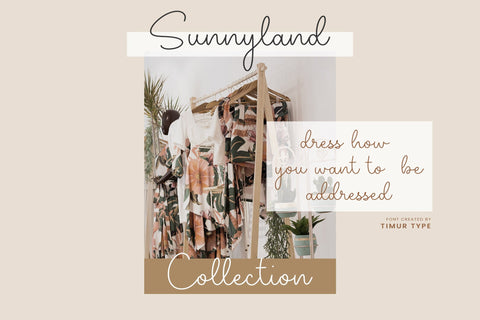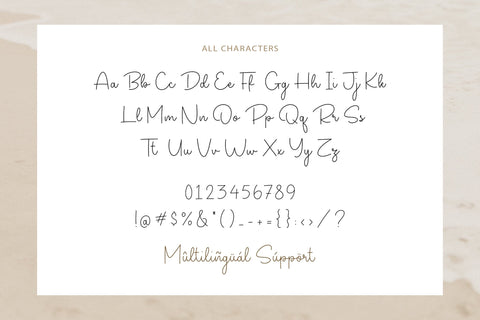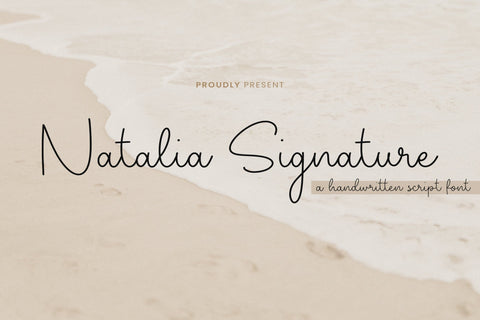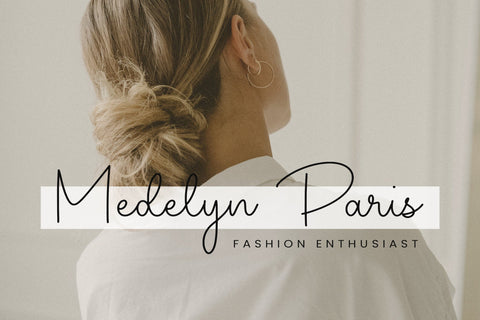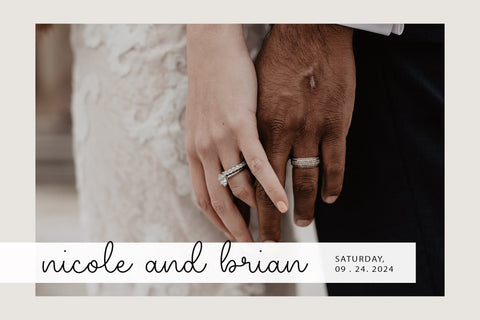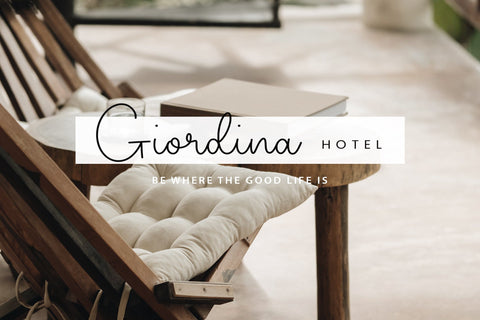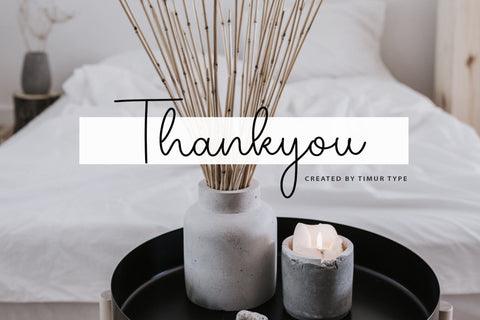
Natalia Signature - Handwritten Script font
Natalia Signature is a Handwritten Script font , which was created with great care and specially created for you .
Natalia Signature is best for:
- logos, branding, & Signatures.
- Flyers, Album cover, Magazine, & Advertisements.
- Website design , design blogs, & fashion.
- Quote graphics for social media.
- and also it works great for other projects.
- Numerals and Punctuation (OpenType Standard)
- Accents (Multilingual characters)